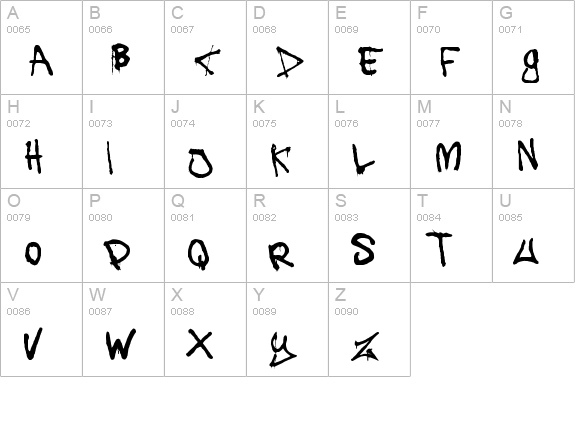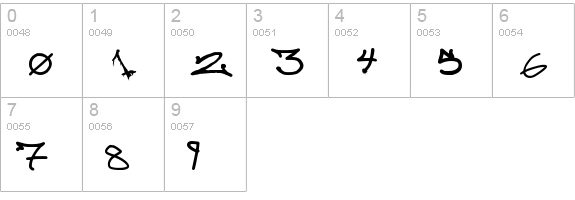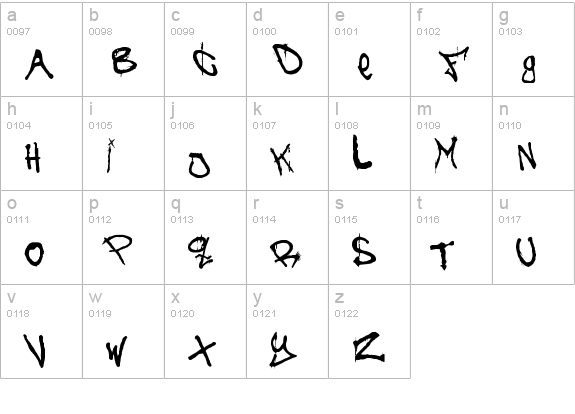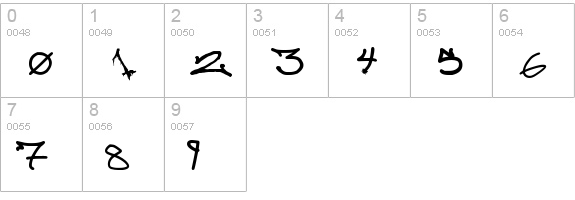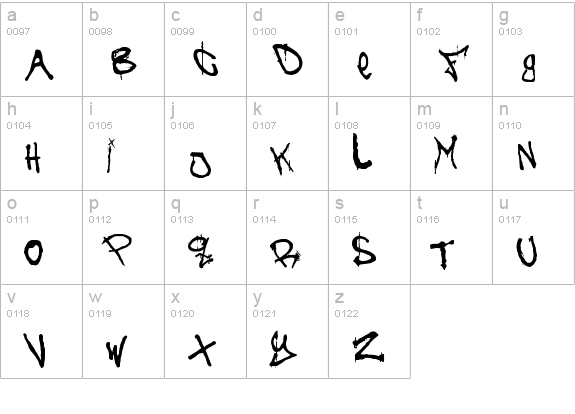
The Battle Continuez Font Details
The Battle Continuez font is a powerful and intense display typeface that exudes strength and determination. With its bold and sharp letterforms, this font commands attention and makes a statement. Inspired by epic battles and the courageous spirit of warriors, The Battle Continuez font is perfect for projects that require a bold and impactful visual presence. The Battle Continuez font is not only visually striking, but it is also incredibly versatile. Whether you're designing a logo for a sports team, creating eye-catching headlines, or adding an edgy touch to your graphic designs, this font is sure to make a lasting impression. One of the best things about The Battle Continuez font is that it is available for free! You can easily download it at FontsMarket.com, a trusted source for high-quality fonts. This means that you can add this amazing typeface to your collection without spending a dime. With its captivating design and free availability, The Battle Continuez font is a must-have for designers and creatives looking to make a bold statement. Whether you're working on personal or commercial projects, this font will elevate your designs and captivate your audience. So don't miss out on the opportunity to download The Battle Continuez font for free at FontsMarket.com and unleash its power in your designs today!